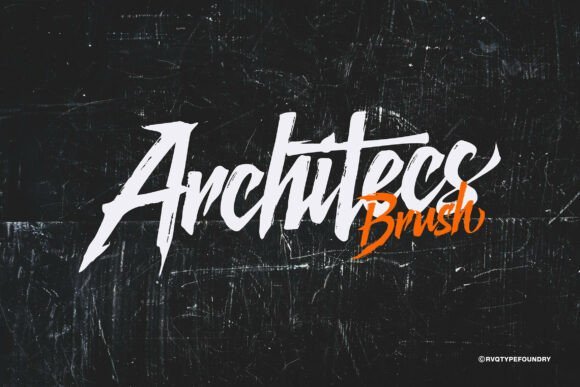
The Art of Handwritten Elegance: Introducing the Architecs Brush Font
Have you ever found yourself lost in a sea of digital fonts, yearning for something with a personal touch? As designers, we’ve all been there – trying to bring a project to life with the perfect combination of typography and flair. For those moments when a standard font just won’t cut it, we’re excited to introduce the Architecs Brush Font, a beautifully crafted handwritten font brush that’s sure to elevate your designs.
The Architecs Brush Font is more than just a pretty face – it’s a versatile tool designed to add a touch of elegance and sophistication to any project. With its vintage feel and full set of characters, including multi-lingual support, currency figures, and numerals, this font is a valuable addition to any designer’s toolkit. By incorporating the Architecs Brush Font into your work, you’ll be able to create unique and captivating designs that truly stand out from the crowd.
Key Features of “Architecs Brush Font”
- Font Style: A unique blend of modern and brush script styles, ideal for creative and artistic designs.
- Character Set: Includes a comprehensive set of characters, including Latin, Cyrillic, and Greek alphabets, as well as punctuation and symbols.
- Unique Characteristics: Features a dynamic and expressive feel, with subtle variations in stroke width and texture that evoke a sense of hand-drawn craftsmanship.
Architecs Brush Font Review
Overall, I’d say the Architecs Brush Font is a solid addition to any designer’s toolkit. Here are the things that work well:
- ✨ Unique aesthetic: The font’s brush-like texture gives it a distinctive look that’s perfect for creative projects and branding.
- ✨ Highly customizable: The font comes in a range of weights and styles, making it easy to find the perfect fit for your design.
- ✨ Smooth performance: I didn’t experience any major issues with the font’s performance, even at larger font sizes.
However, there are a few limitations to be aware of:
- ⚠️ Limited language support: The font may not support all languages or characters, which could be a problem for global brands or projects.
- ⚠️ Not suitable for body text: The font’s brush-like texture can be distracting at larger font sizes, making it better suited for headlines and titles.
Overall, I’d give the Architecs Brush Font 4 out of 5 stars. It’s a great choice for designers who want a unique and creative font, but may not be the best option for every project. With a little creativity and planning, it can be a real showstopper.
Architects Brush Font is ideal for use in design projects that require a unique, handwritten font. Some common use cases include:
- Typography-based artwork
Alternatives to Architecs Brush Font for Designers
Great Vibes is a beautiful, elegant script font that’s perfect for creating a sense of sophistication and refinement. It’s ideal for use in branding, invitations, and other materials where a high-end, luxurious feel is desired.
Great Vibes compares to Architecs Brush Font in that it also has a brush-like quality, but with a more refined and precise look. It’s a good choice for designers who want to convey a sense of elegance and sophistication without the rough, hand-drawn feel of Architecs Brush Font.
Carolyna Pro is a modern script font that’s perfect for creating a sense of playfulness and whimsy. It’s ideal for use in branding, advertising, and other materials where a fun and energetic feel is desired.
Q: Can I customize the Architects Brush Font to fit my project’s needs?
Yes, the Architects Brush Font is fully editable and can be customized using various design software. You can adjust font size, color, and style to fit your project’s requirements. Additionally, you can also use font editing software like FontForge or FontLab to modify the font’s glyphs and characters.